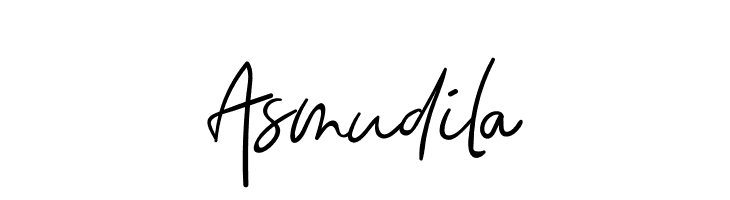
A casual, handwritten font with dynamic, flowing strokes.
An elegant, flowing script font with ornate uppercase and smooth lowercase letters.
A playful, elegant script font with a handwritten style.
A cursive, handwritten-style font with elegant, flowing strokes.
A lively and fluid handwritten font with elegant, flowing letterforms.
An elegant script font with flowing, continuous strokes and graceful curves.
A dynamic and elegant script font with fluid strokes.
A dynamic, flowing script font with a handwritten, artistic style.